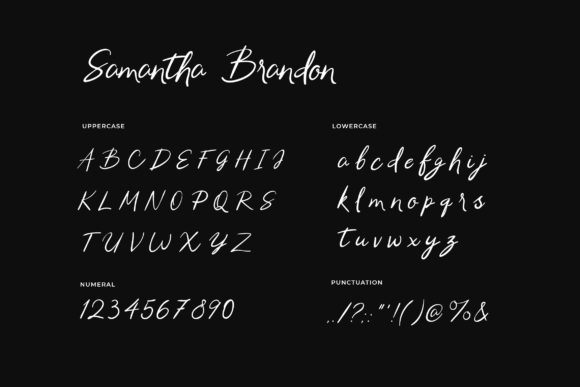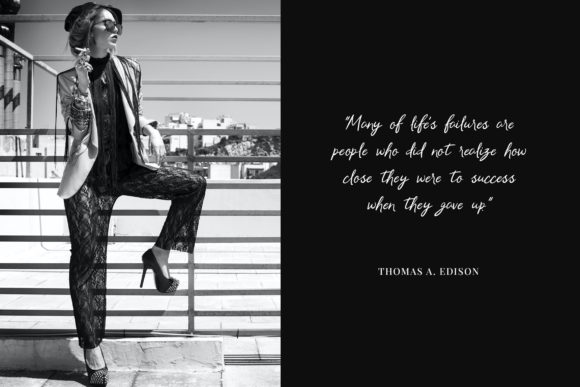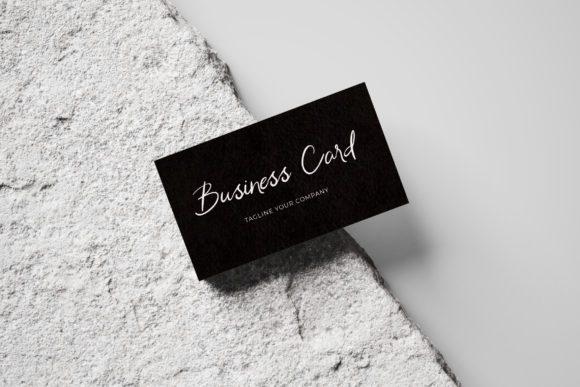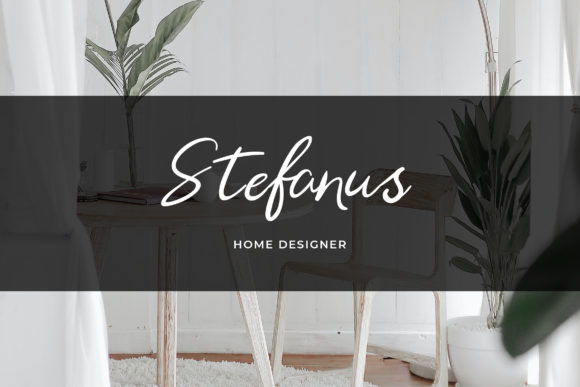
Introduction to Samantha Brandon Font
Samantha Brandon is an elegant script font, that features a very delicate and classy look.
Not too thin and not too thick, balanced and varied, this font was designed to enhance the beauty of your projects .
Key Features of Samantha Brandon Font